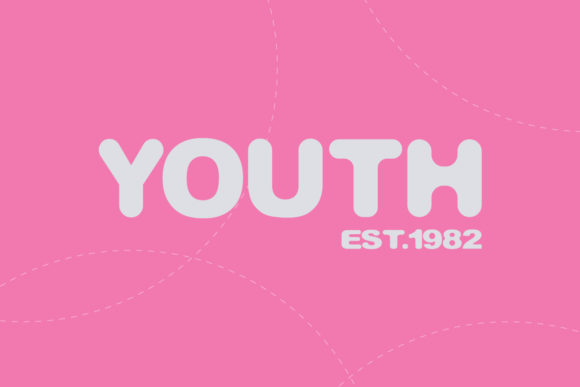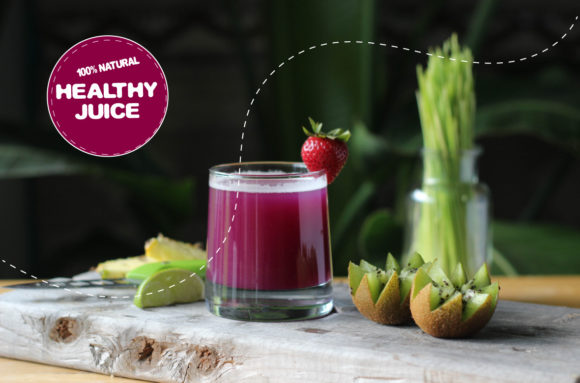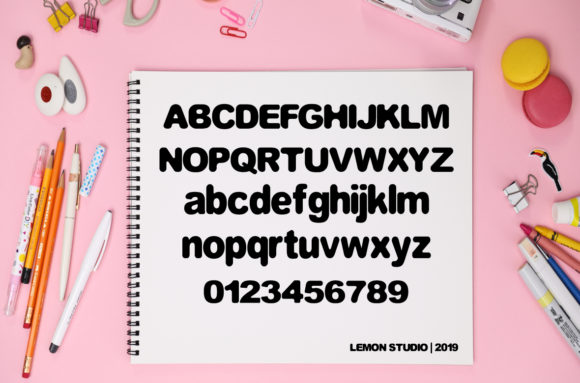
Unlocking the Power of Equivalent Bold Font: Elevate Your Designs with a Striking Sans Serif
In the world of typography, fonts play a crucial role in conveying messages, expressing creativity, and capturing attention. For designers and crafters, finding the perfect font can make all the difference in creating visually stunning and effective designs. One such font that has gained popularity for its bold and modern style is the Equivalent Bold Font. In this article, we’ll explore the features, uses, and benefits of Equivalent Bold, and how it can elevate your designs to the next level.
The Equivalent Bold Font: A Striking Sans Serif
The Equivalent Bold font is a striking sans serif typeface that exudes confidence and sophistication. Its bold and modern style makes it an ideal choice for a wide range of design applications, from magazines and flyers to branding, logos, and headlines. With its clean lines, precise curves, and geometric shapes, Equivalent Bold is a versatile font that can add a touch of elegance and professionalism to any design.
Key Features of Equivalent Bold Font
- Bold and Modern Style: Equivalent Bold boasts a bold and modern aesthetic that is sure to grab attention.
- Sans Serif Typeface: The font’s sans serif design ensures clarity and readability, making it perfect for body text and headlines.
- Geometric Shapes: The font’s geometric shapes and precise curves give it a sleek and sophisticated look.
- High Versatility: Equivalent Bold can be used for a wide range of design applications, from print to digital media.
Uses of Equivalent Bold Font
The Equivalent Bold font is an incredibly versatile typeface that can be used for various design projects, including:
- Magazines and Flyers: Add a touch of sophistication to your magazine and flyer designs with Equivalent Bold’s bold and modern style.
- Branding and Logos: Create a lasting impression with Equivalent Bold’s unique and memorable design.
- Headlines and Titles: Use Equivalent Bold to create attention-grabbing headlines and titles that demand attention.
- High Fashion: Equivalent Bold’s sleek and sophisticated design makes it perfect for high-end fashion brands and designs.
Benefits of Using Equivalent Bold Font
So, why choose Equivalent Bold Font for your design projects? Here are some benefits of using this striking sans serif:
- Improved Readability: Equivalent Bold’s clear and precise design ensures excellent readability, even at smaller font sizes.
- Enhanced Visual Appeal: The font’s bold and modern style adds a touch of sophistication and elegance to any design.
- Increased Versatility: Equivalent Bold can be used for a wide range of design applications, making it a valuable addition to any designer’s font library.
- Unique and Memorable: Equivalent Bold’s unique design ensures that your designs stand out from the crowd and leave a lasting impression.
| Font Name | Equvalent Bold Font |
| Author | Lemon Studio |
In conclusion, the Equivalent Bold Font is a striking sans serif typeface that offers a bold and modern style, making it perfect for a wide range of design applications. With its clean lines, precise curves, and geometric shapes, Equivalent Bold is a versatile font that can add a touch of elegance and professionalism to any design. Whether you’re a designer or crafter, Equivalent Bold is an excellent choice for creating visually stunning and effective designs. So, unlock the power of Equivalent Bold Font and elevate your designs to the next level!